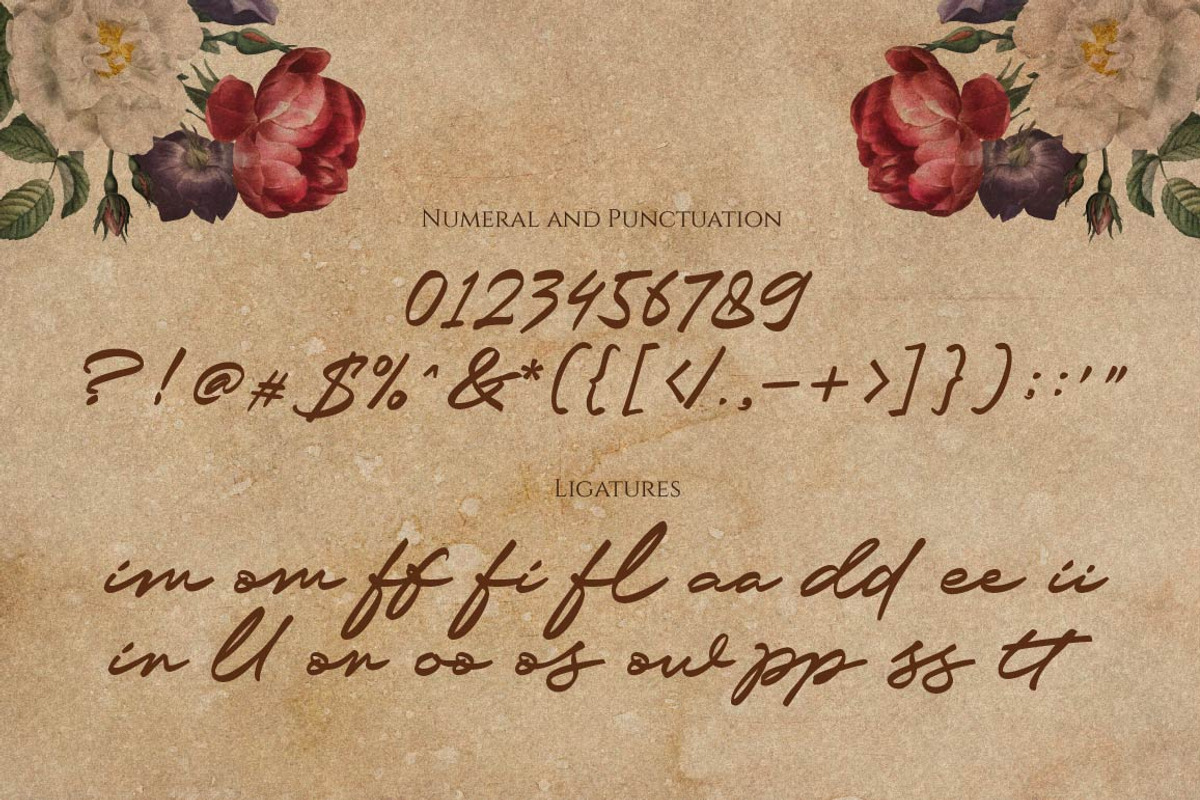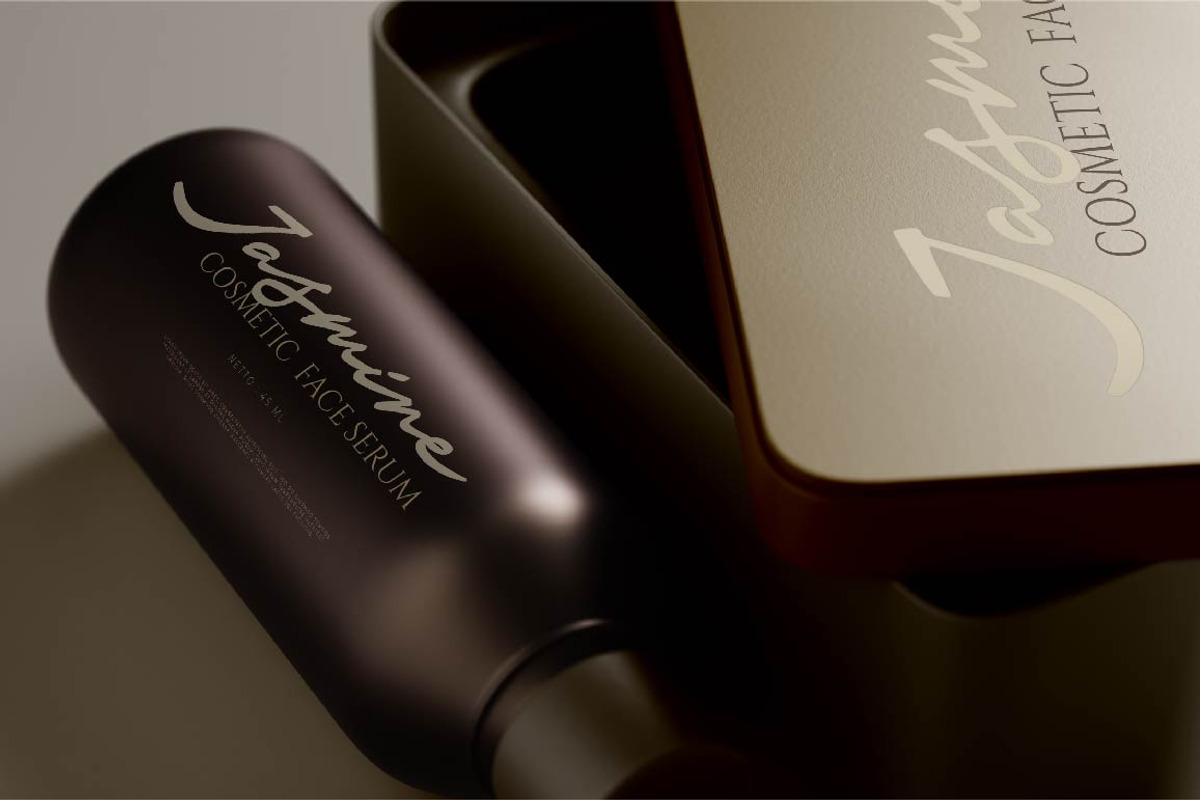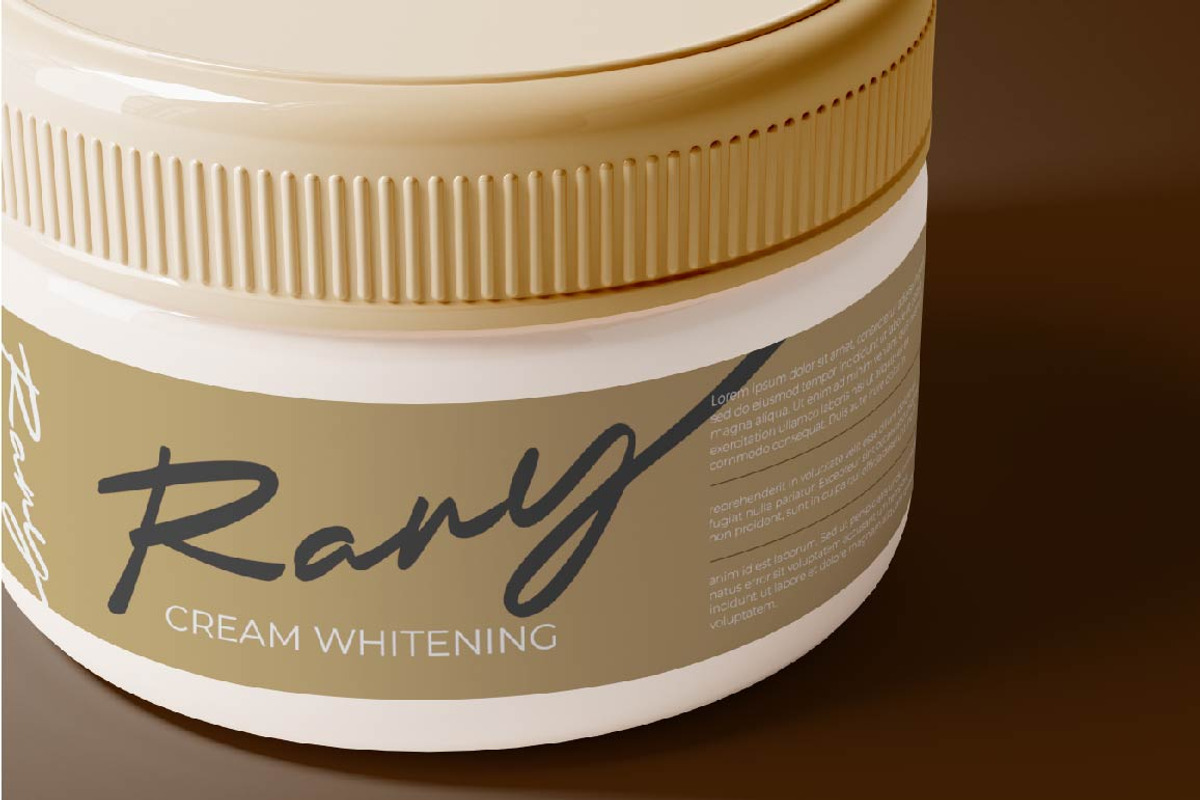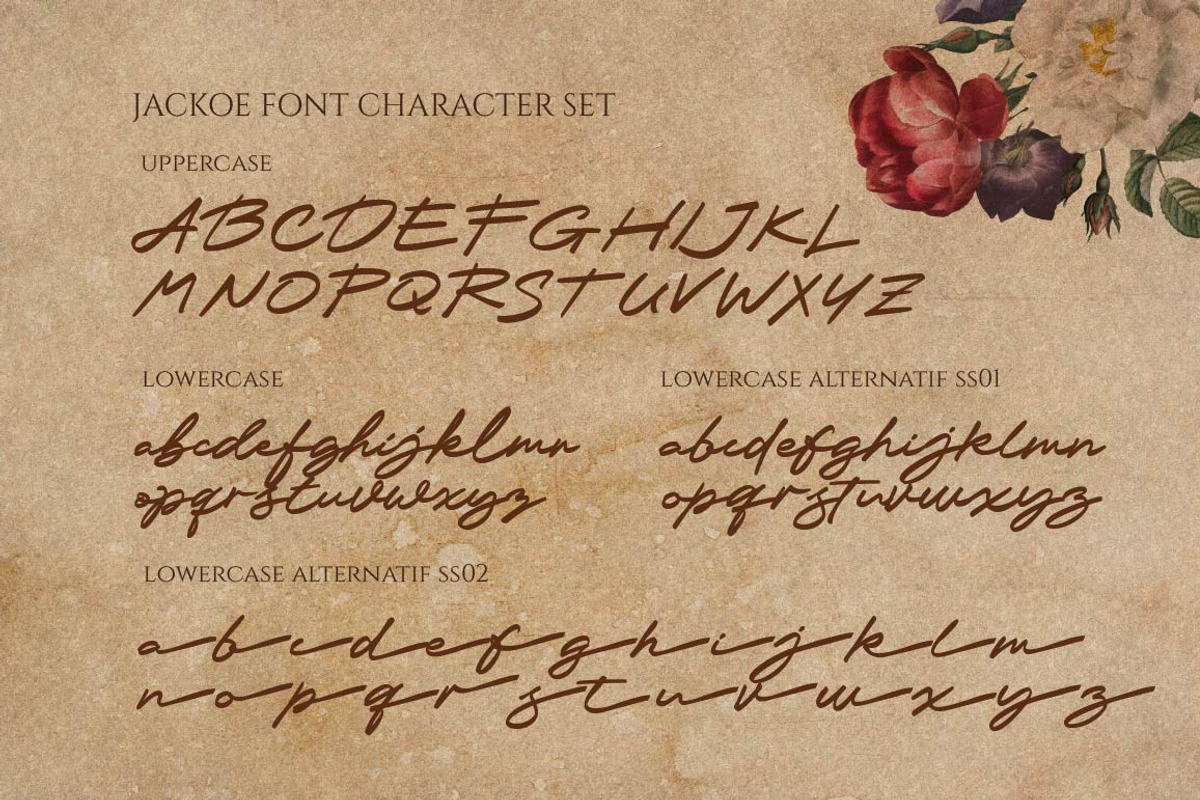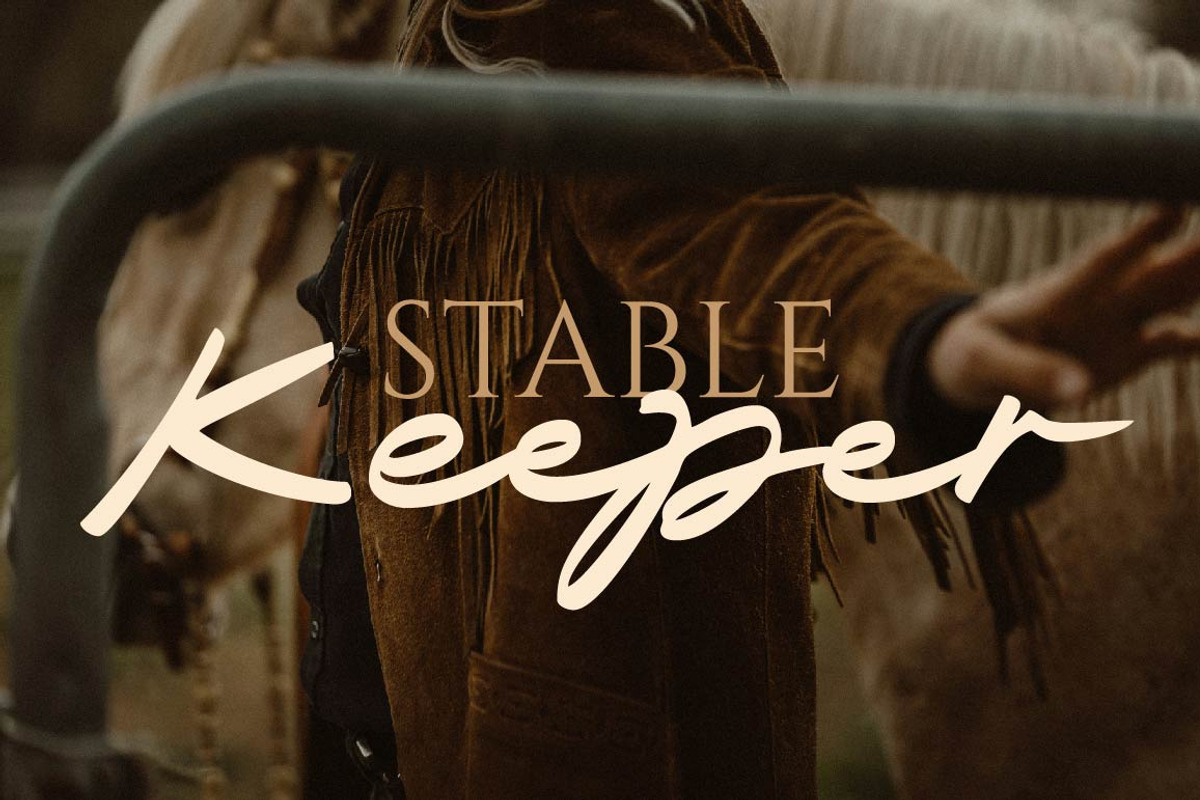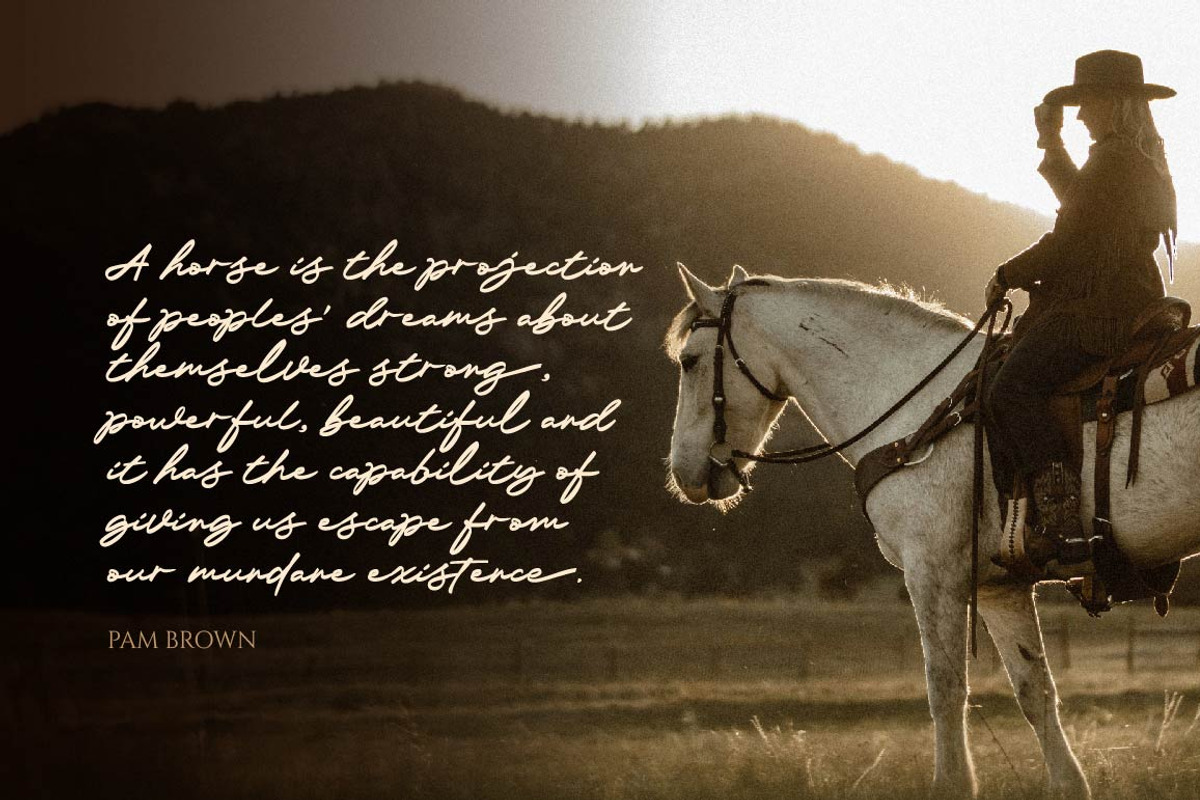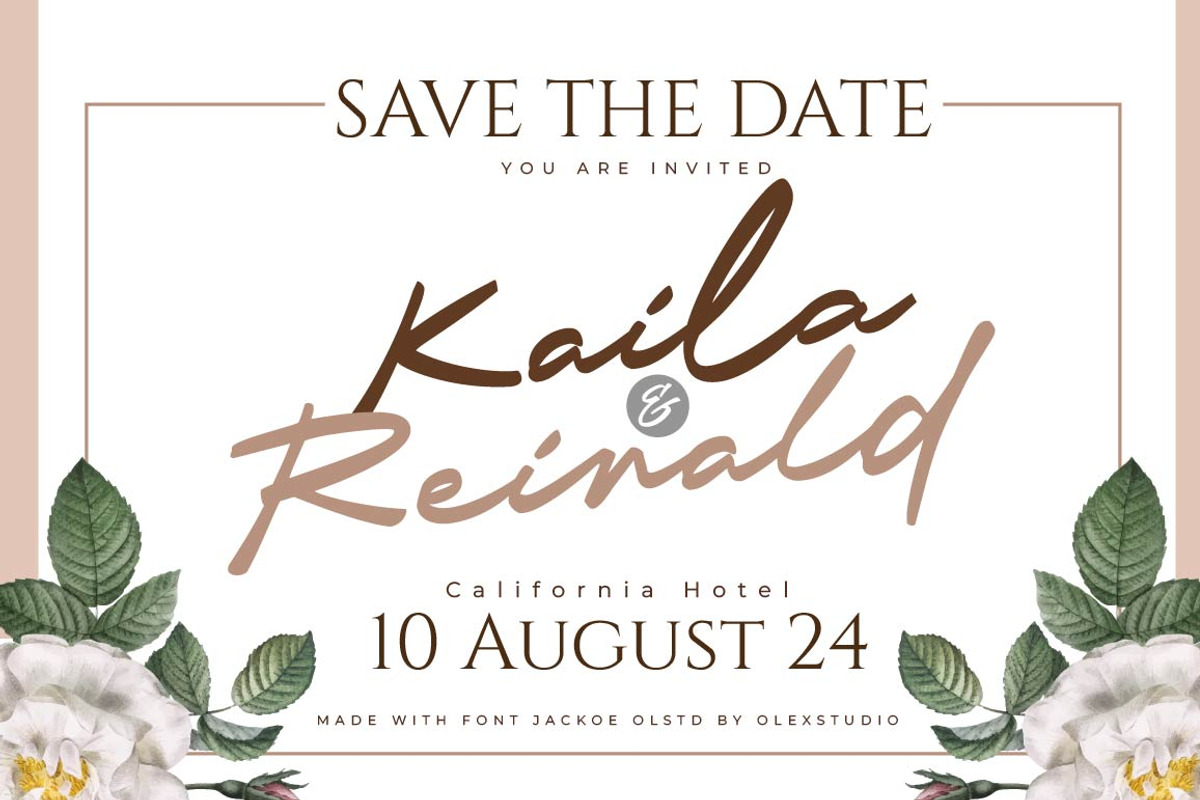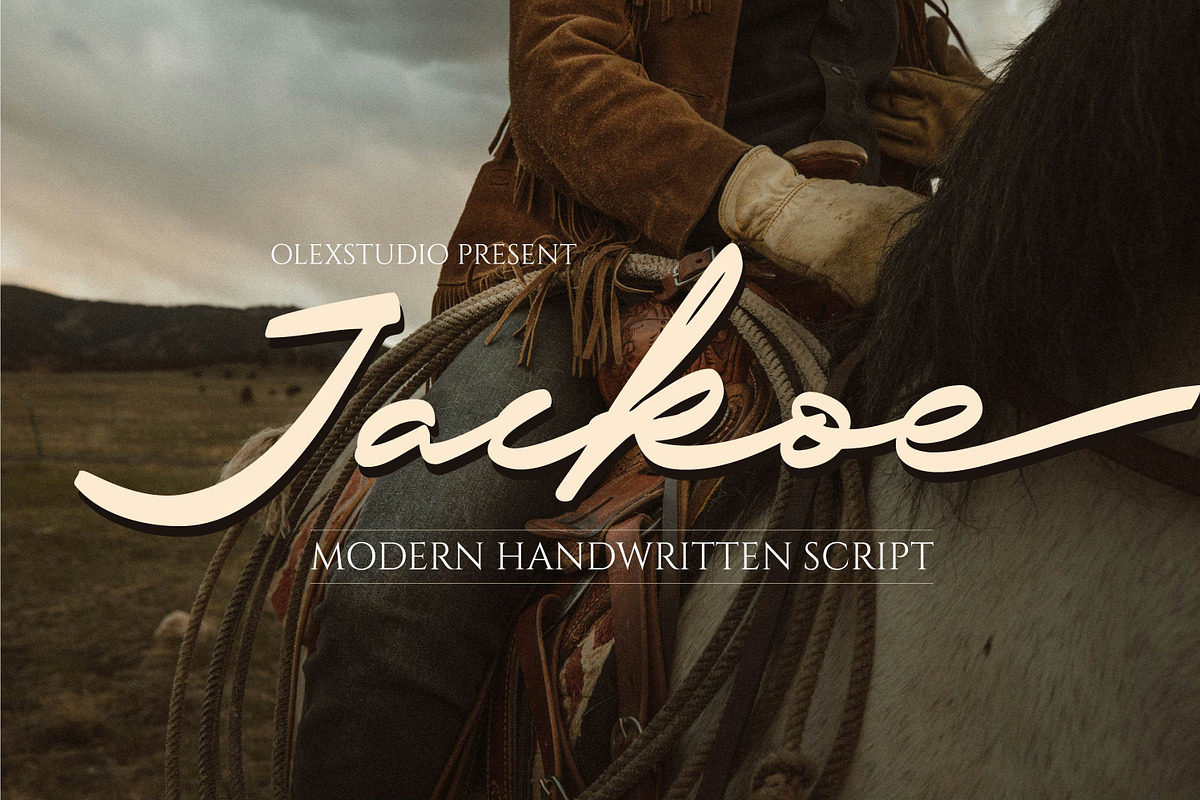
Jackoe - Modern Handwritten Script
JACKOE - Modern Handwritten Script Font will look gorgeous on all your designs, invitation, poster design, book design, branding materials, logo's, and all project design other.
JACKOE - Modern Handwritten Script Font contains standard characters, Lowercase, Uppercase, Lowercase Alternates, numbers, punctuation, ligatures and international glyphs. You will receive OTF, TTF files & WEBFONT.